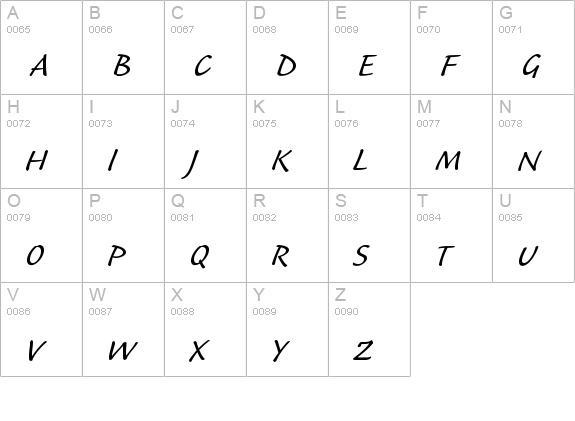
Caliban Std Font Details
Caliban Std is a versatile and elegant font that exudes sophistication and style. Its clean lines and classic design make it a perfect choice for a wide range of projects, from formal invitations to modern branding. The timeless appeal of Caliban Std ensures that your text will always make a statement. What's even better is that Caliban Std is available for free download at FontsMarket.com. This means you can access this high-quality font without any cost, making it an excellent option for both personal and commercial use. Don't miss out on the opportunity to elevate your designs with Caliban Std - download it today and experience the beauty of this exceptional font.